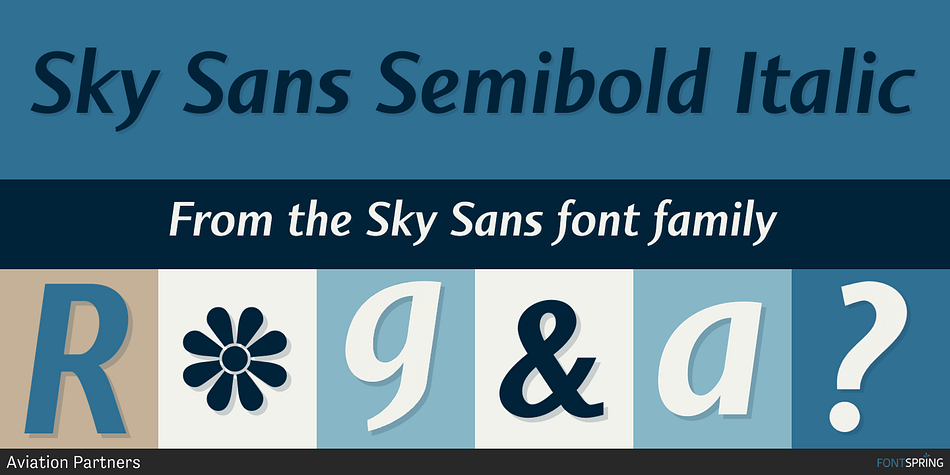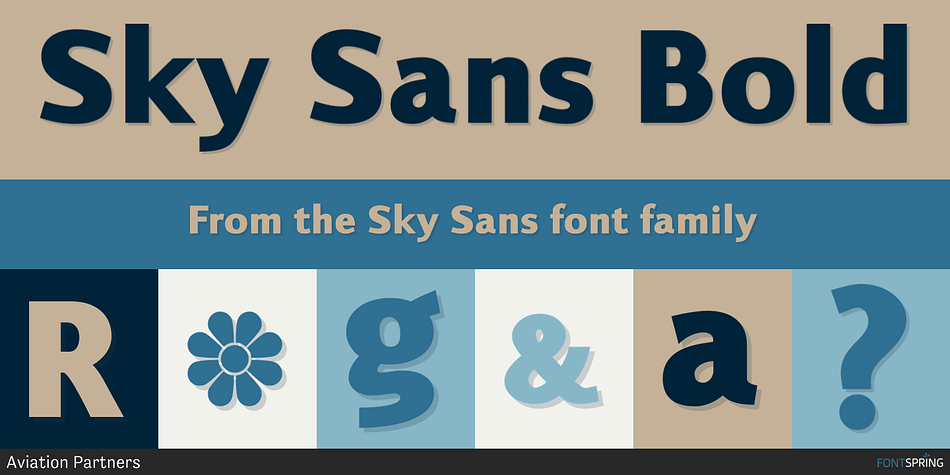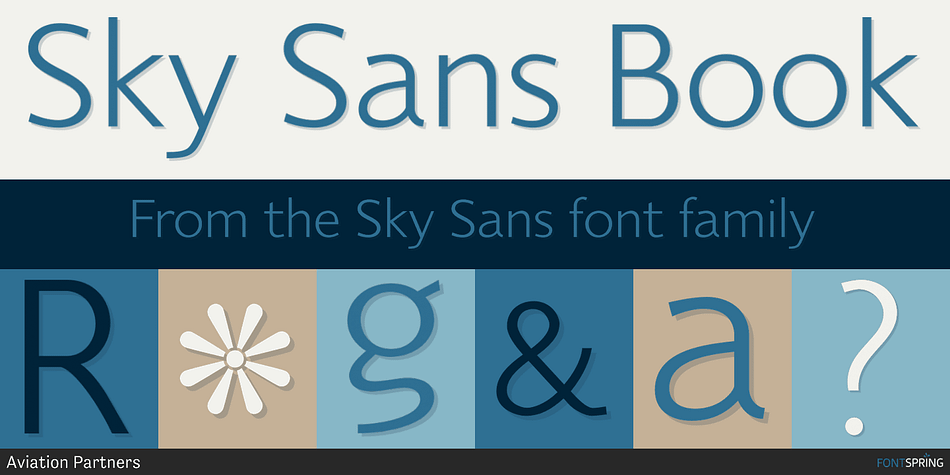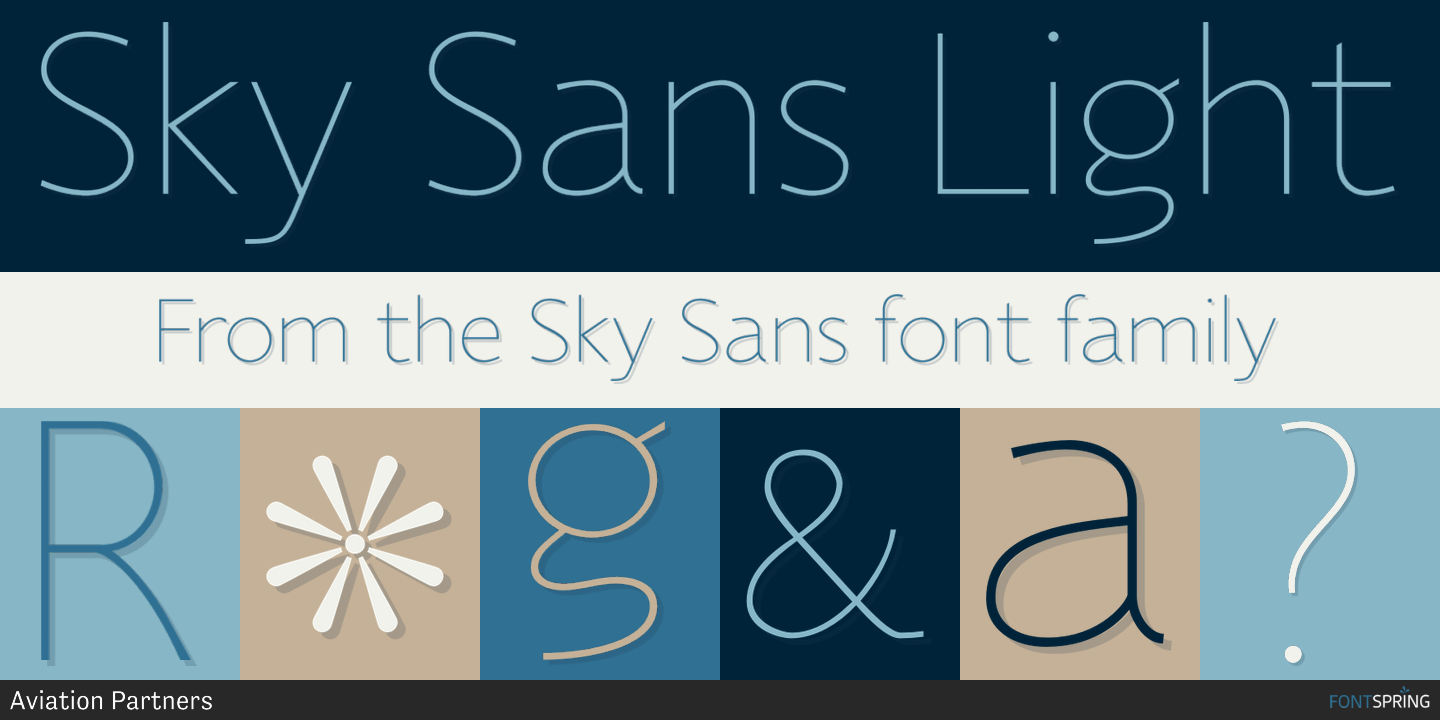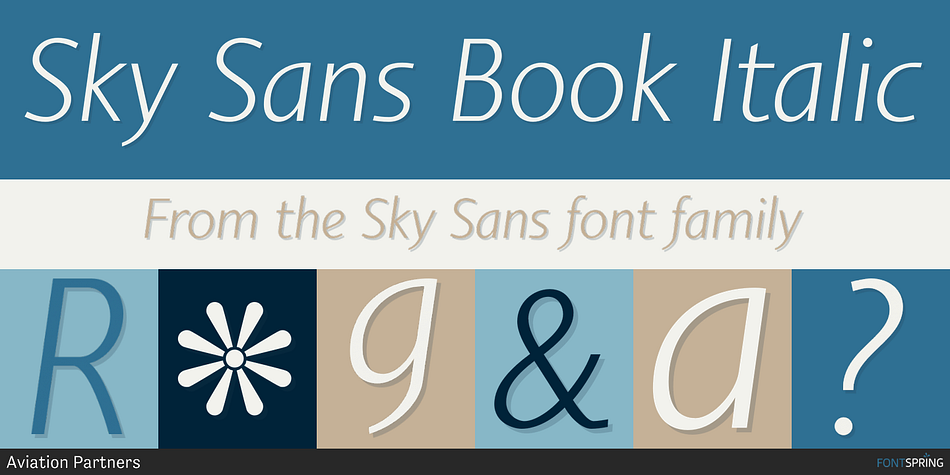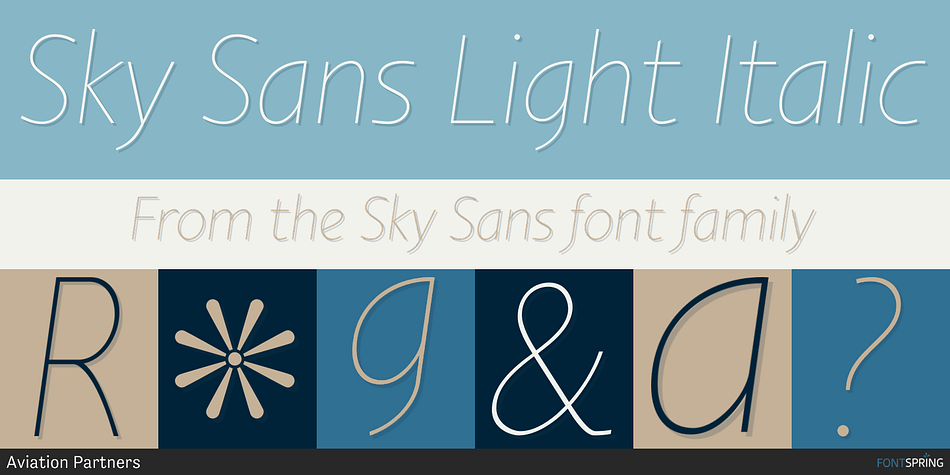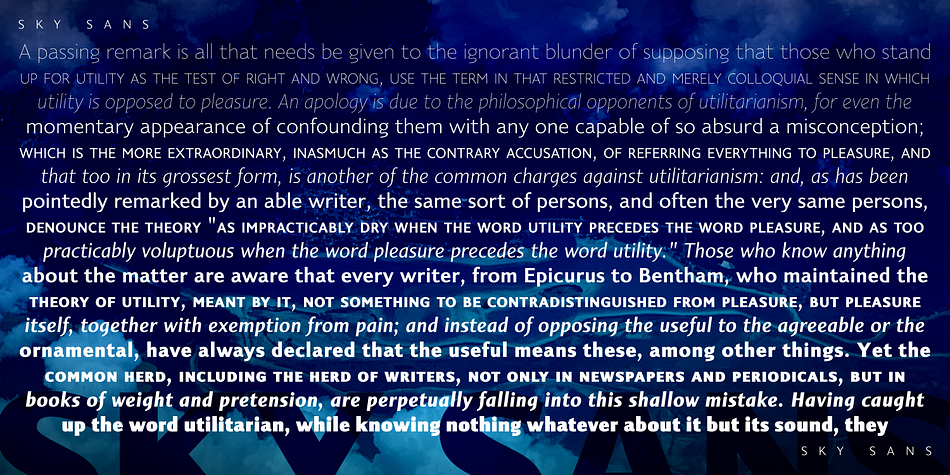
Sky Sans is a sans serif and display sans font family. This typeface has sixteen styles and was published by Aviation Partners.
Sky Sans is a companion to Sky Serif. The six weights provide extreme variations and great flexibility making it useful for reports and newsletters where a mix of weights can be used to create color.